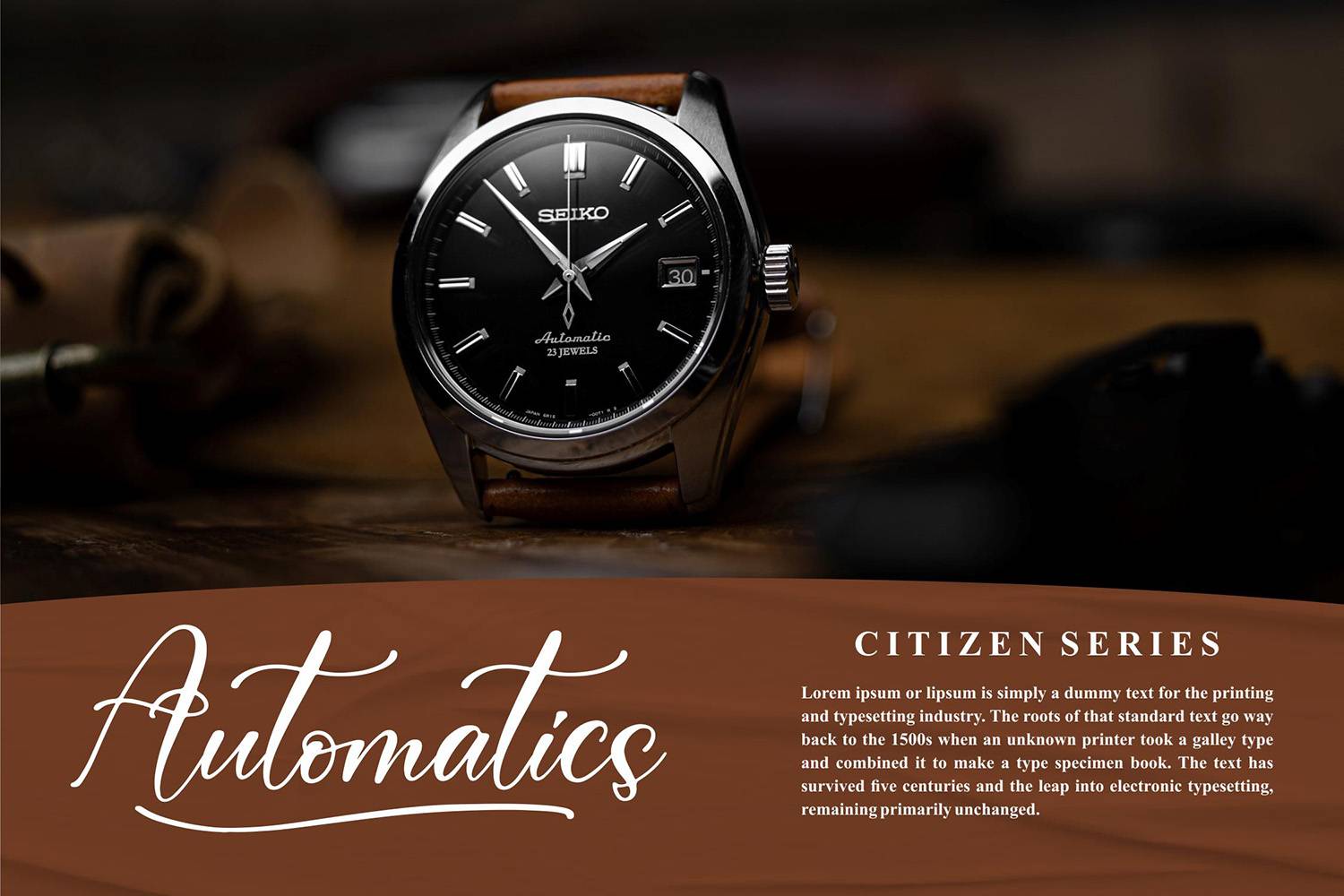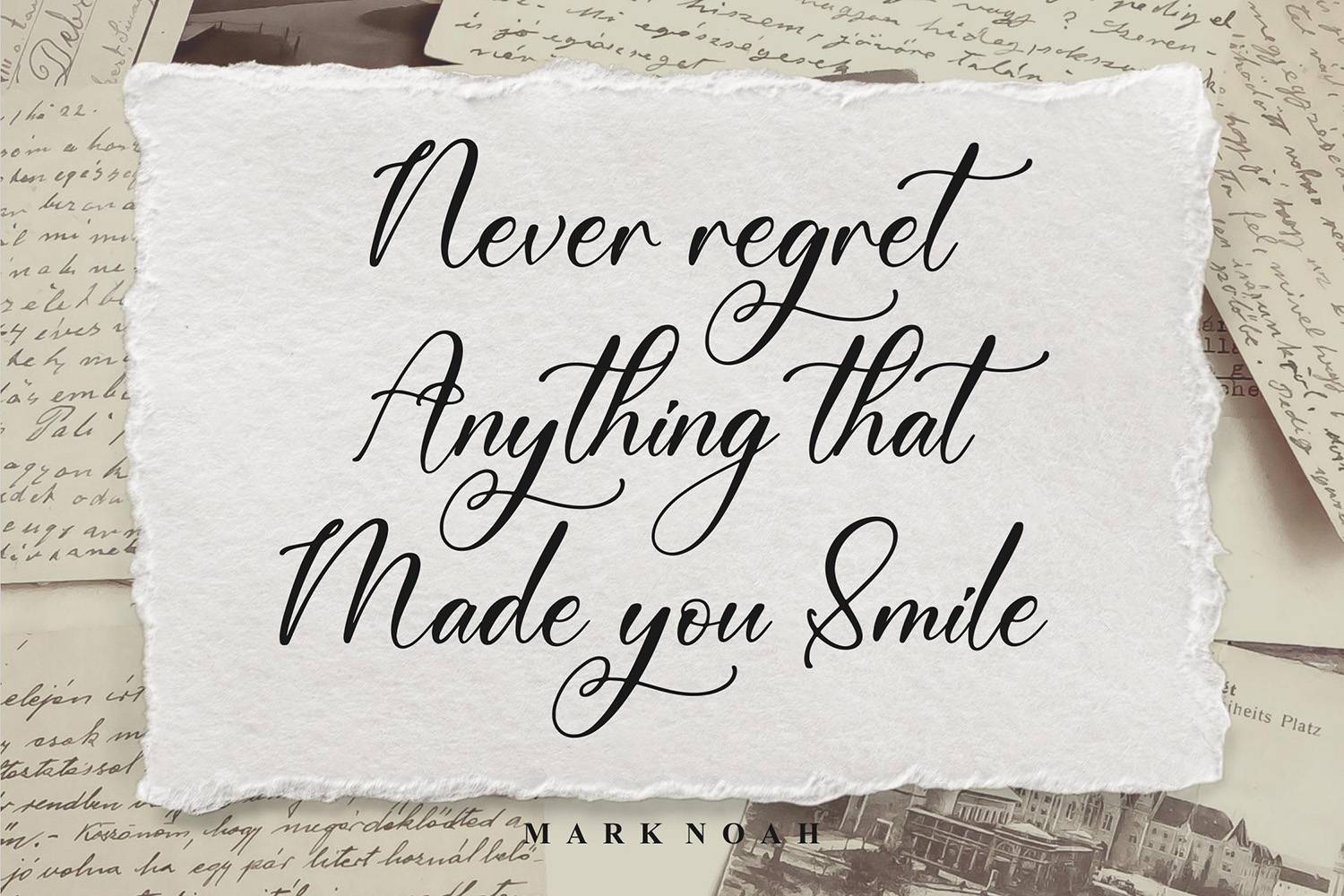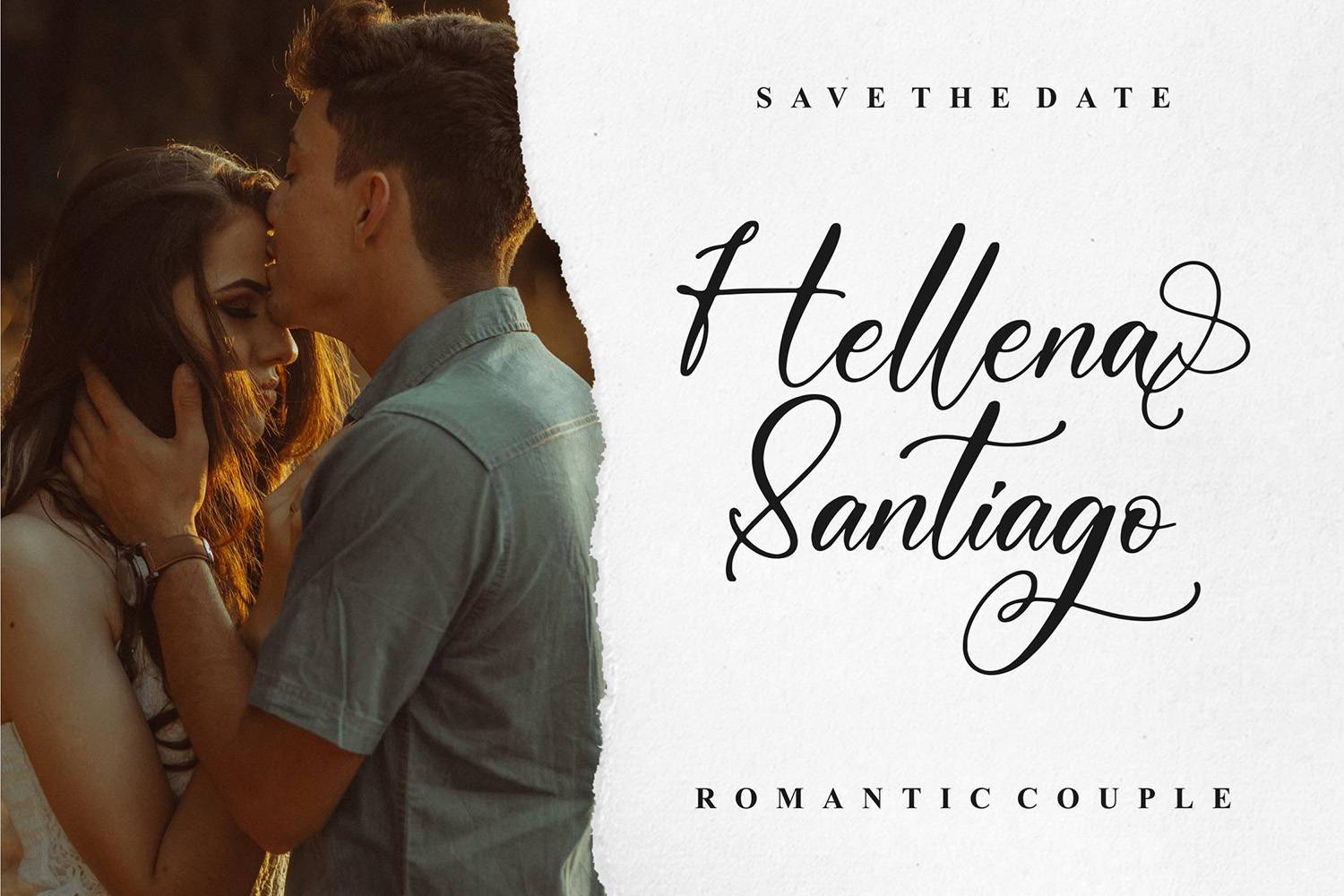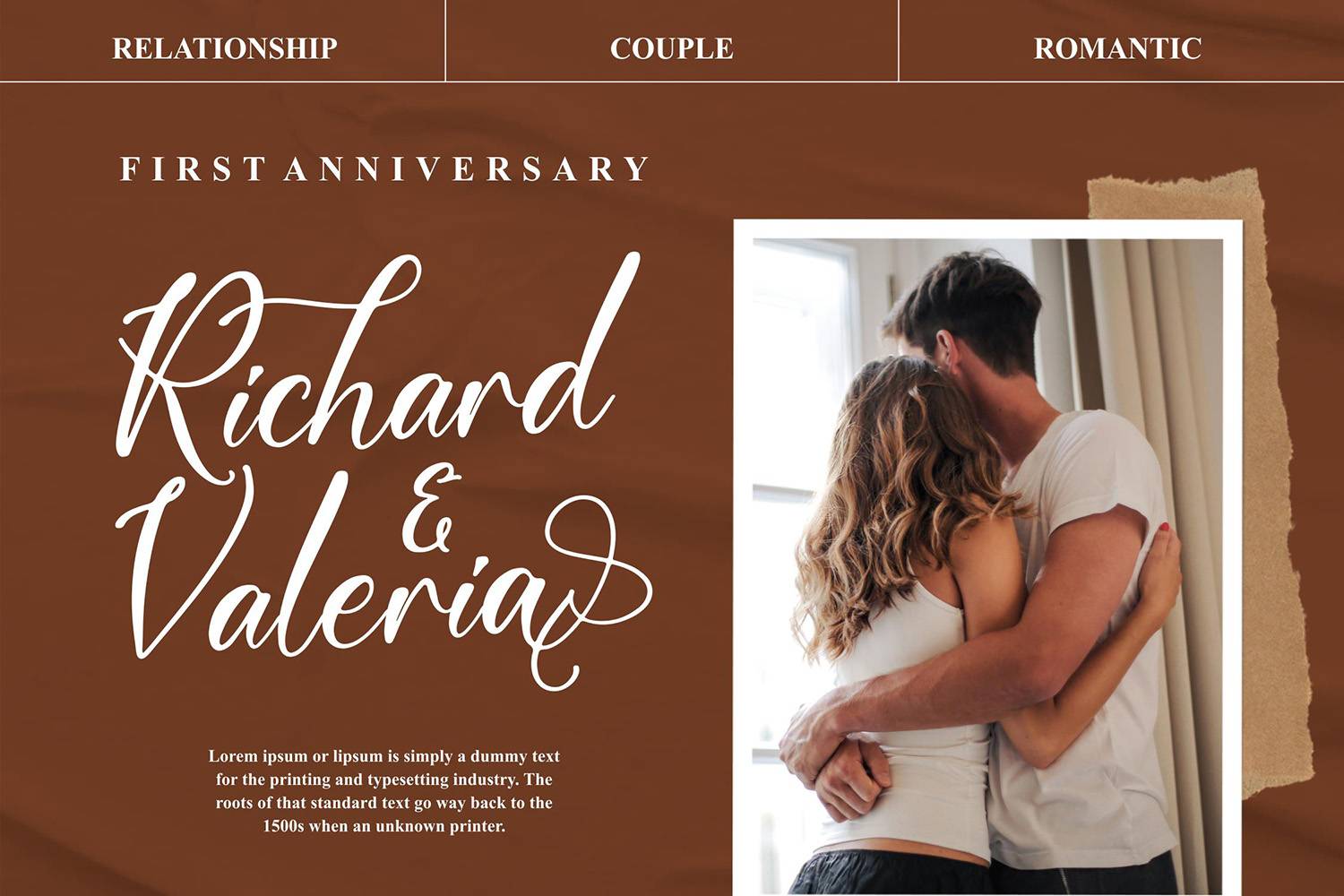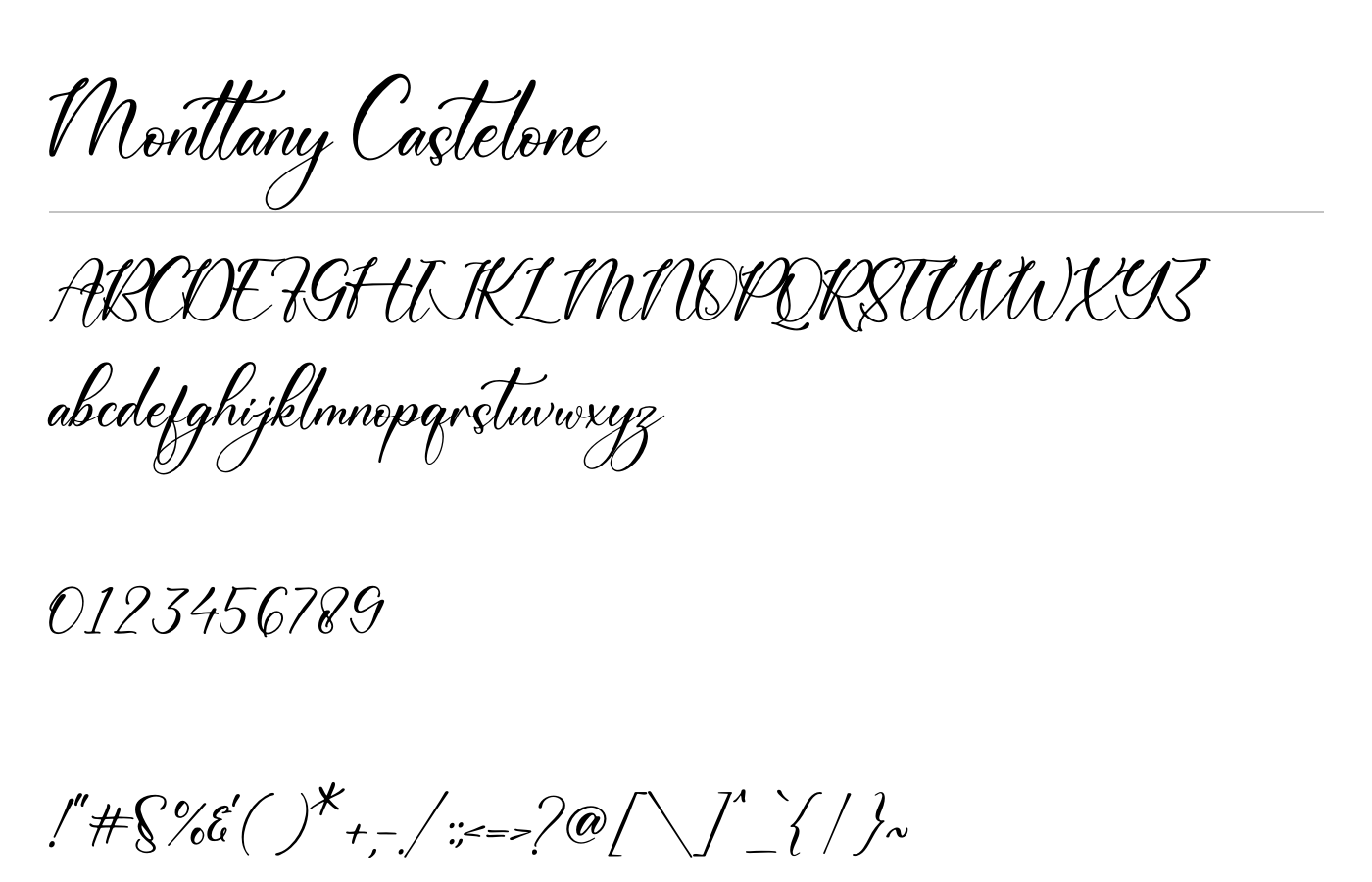
Monttany Castelone is an elegant script font with a delicate, flowing style that evokes a sense of sophistication and grace. Its fine, high-contrast strokes and graceful curves make it ideal for luxury branding, wedding invitations, and artistic logos, where a refined and personal touch is desired. This font works beautifully in headlines or decorative text, offering a stylish and timeless feel that enhances any elegant design.
Monttany Castelone Font